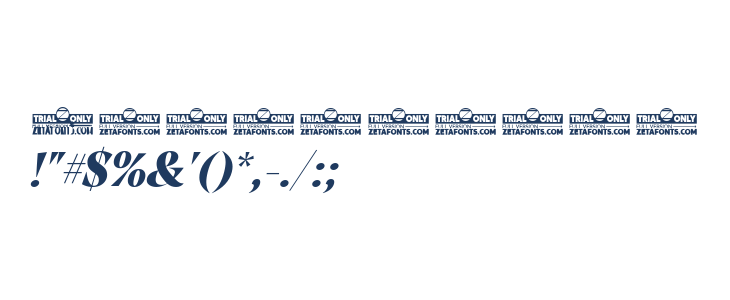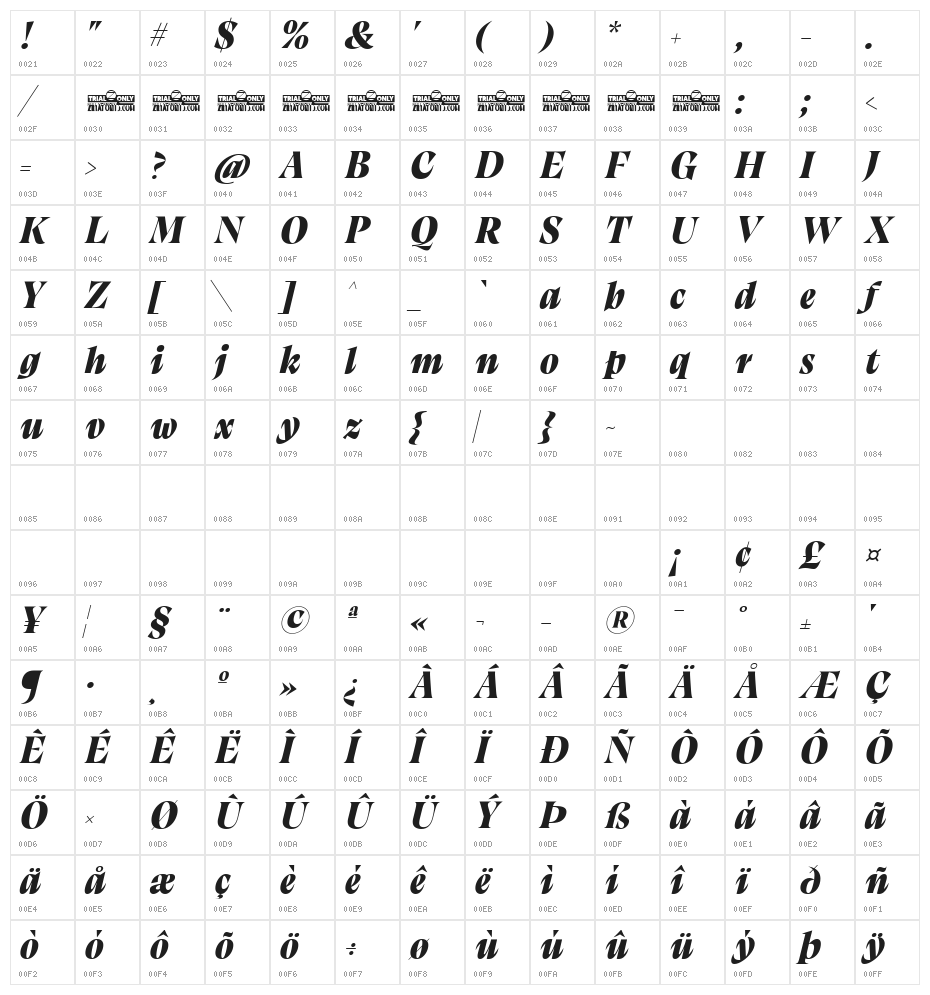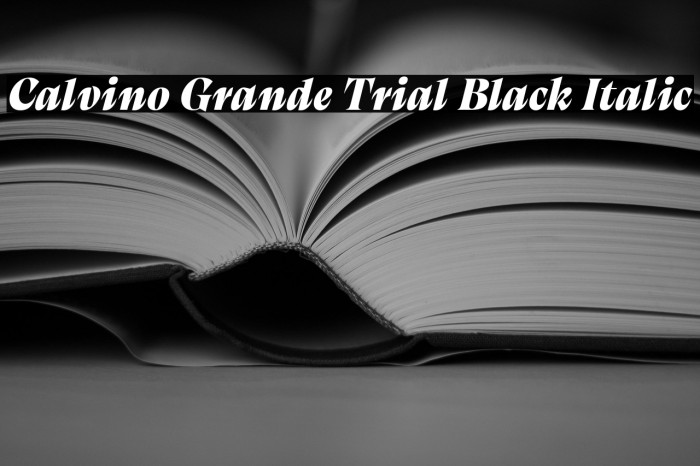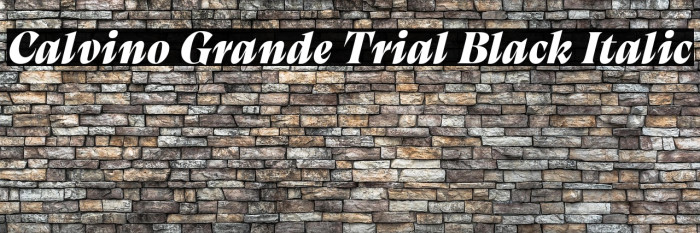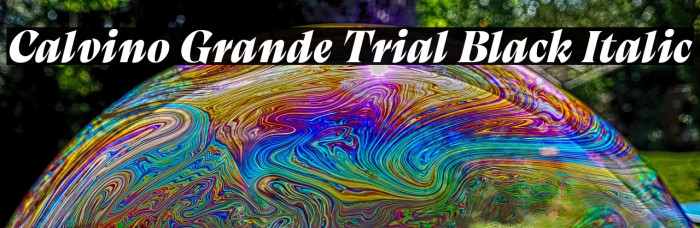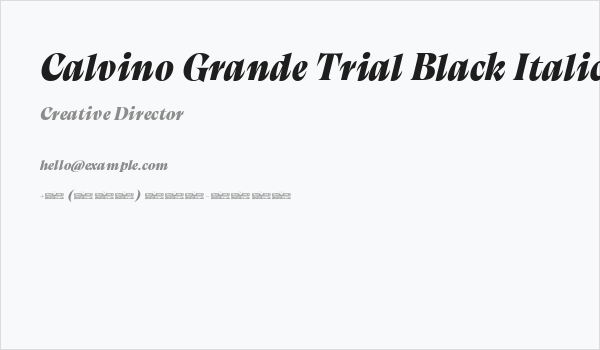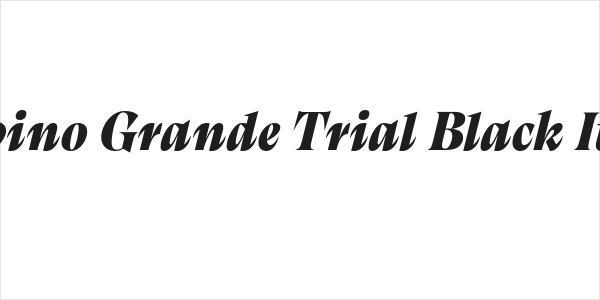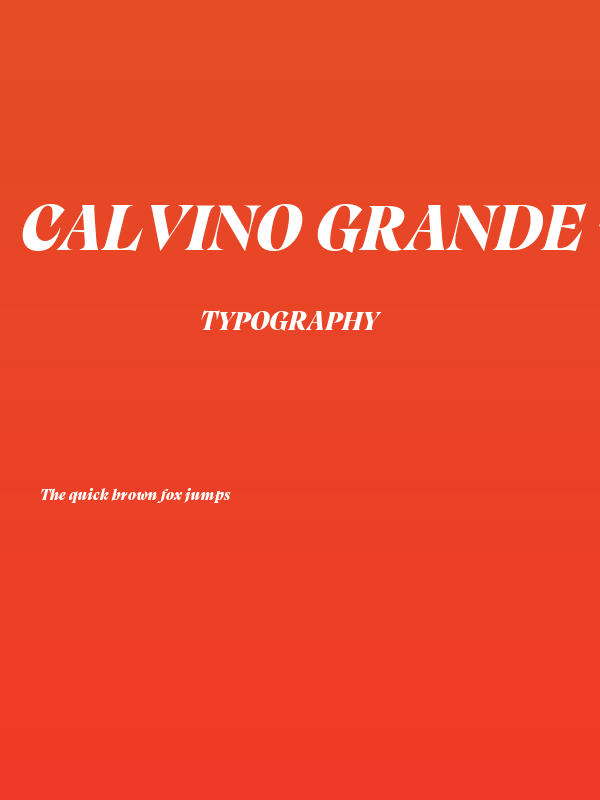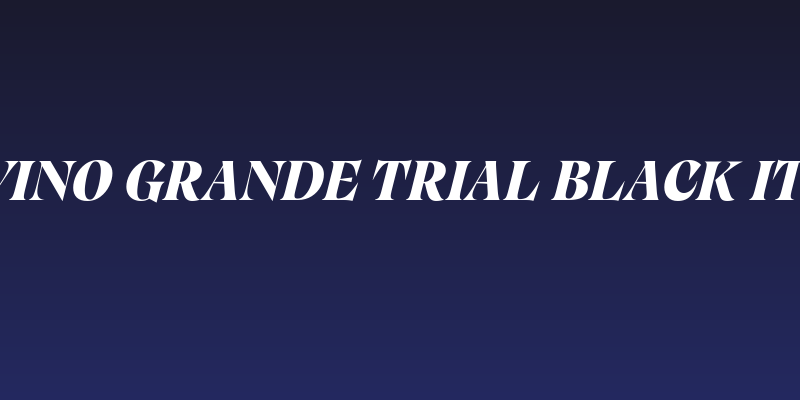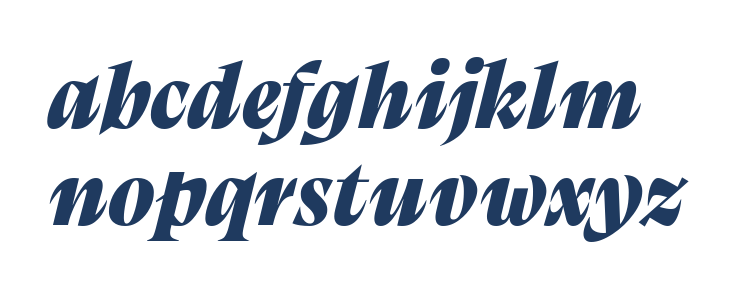
Calvino Grande Trial Black Italic Font
Calvino Grande Trial Black Italic Description
This font exudes a bold and dynamic presence with its strong, slanted characters and thick strokes. The italic style adds a sense of motion and elegance, making it stand out in any design. Each letter is crafted with precision, featuring sharp serifs and a high contrast between thick and thin lines. The uppercase letters are particularly striking, with a commanding presence that demands attention. The lowercase letters maintain the same boldness, ensuring consistency throughout. Special characters are equally robust, adding versatility to the font's application.